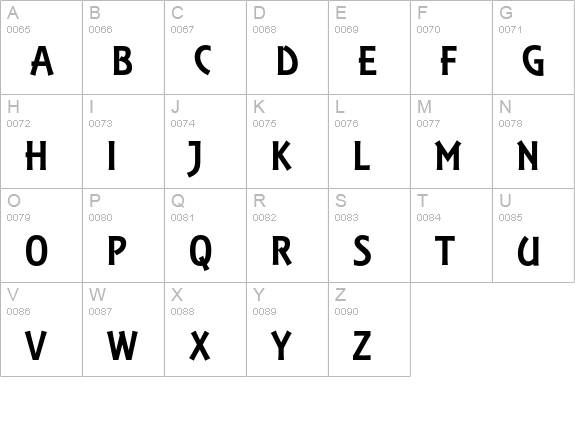
Gianna Font Details
Gianna font is a modern and elegant typeface that exudes sophistication and style. Its sleek lines and graceful curves make it perfect for a wide range of design projects, from branding to invitations to packaging. With its clean and timeless aesthetic, Gianna font adds a touch of class to any design. The best part? Gianna font is available for free download at FontsMarket.com. This means you can easily access this stunning font and use it in your projects without any cost. Whether you're a professional designer or a hobbyist looking to elevate your creations, Gianna font is a versatile and beautiful choice that will help your work stand out. Download Gianna font today and add a touch of elegance to your designs!